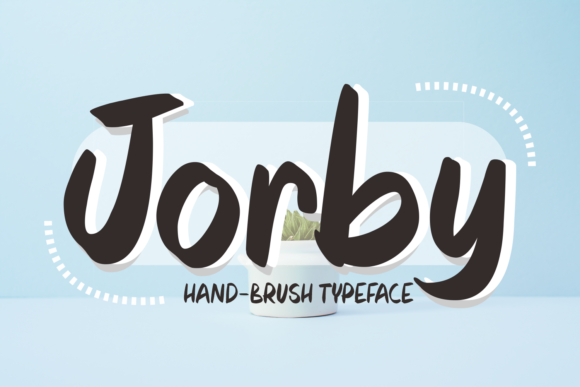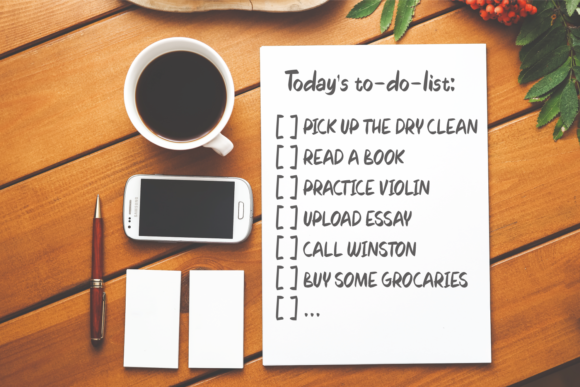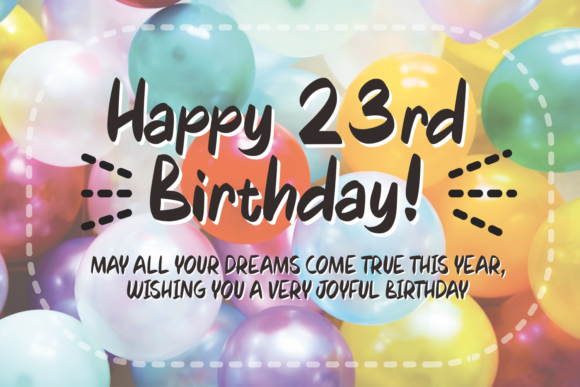
HomeScript FontsJorby Font Script Fonts Jorby Font FacebookXPinterestWhatsApp Jorby Font Poster 2 Jorby Font Poster 3 About Jorby Font Jorby is a bold and fun handwritten font with a whimsical feel. It will add a playful look to any craft! DOWNLOAD ON CREATIVE FABRICAThis font is sold and delivered by Creative Fabrica. Font Canyon may earn a commission if you buy through this link. People also explored Banana Carolline Duo Font Omellia Sweetly Something Font Ambigu Font Handhayani Font Flowrite Look Jeab Lo Font Hello Boho Font Monoblock Font 411 0 TagsJorby Font Previous articleSinatra FontNext articleSakilla Font LEAVE A REPLY Cancel reply Comment: Please enter your comment! Name:* Please enter your name here Email:* You have entered an incorrect email address! Please enter your email address here Website: Save my name, email, and website in this browser for the next time I comment. Personal Use Free Rakesly Personal Use Free Read more about this font Sushi Stroke Personal Use Free Read more about this font Knucklehead Personal Use Free Read more about this font Namskow Personal Use Free Read more about this font BLOG 5 Fonts That Will Dominate Design Trends in 2026 5 Fonts for 2026 That Will Dominate Design Trends Typography plays a critical role in visual communication, and as we look ahead to 2026, it’s... Where to Buy American Fonts Online in 2024 Transform Your Website: Elevate Your Typography with 7 Best Web Font Generators How to Cut Any Font on Cricut: Convert a Font to SVG (Free)